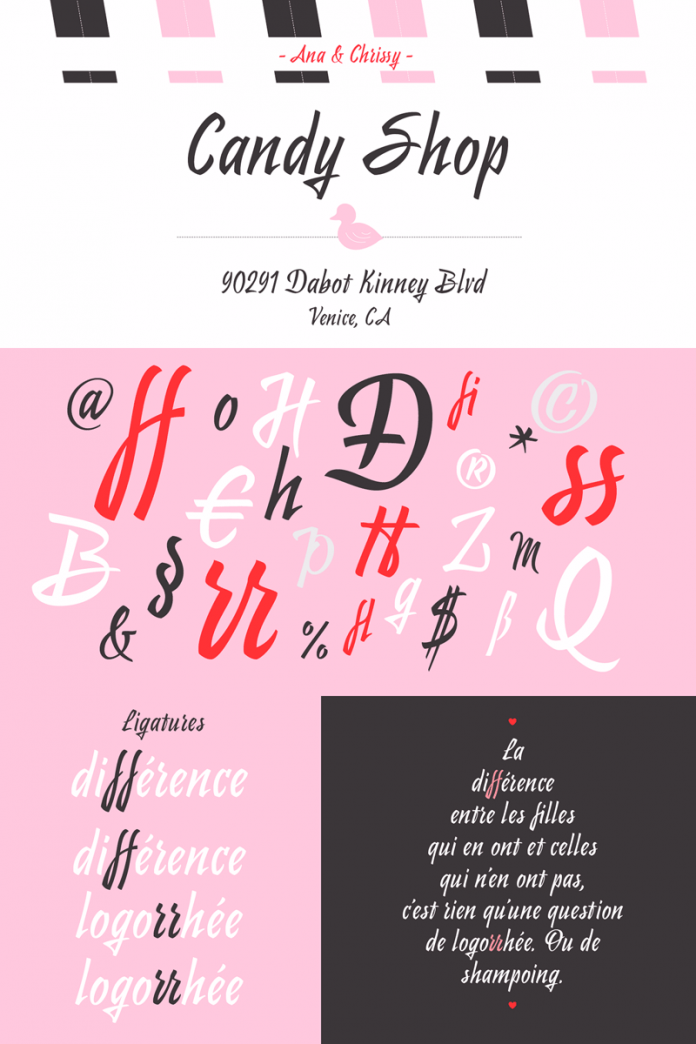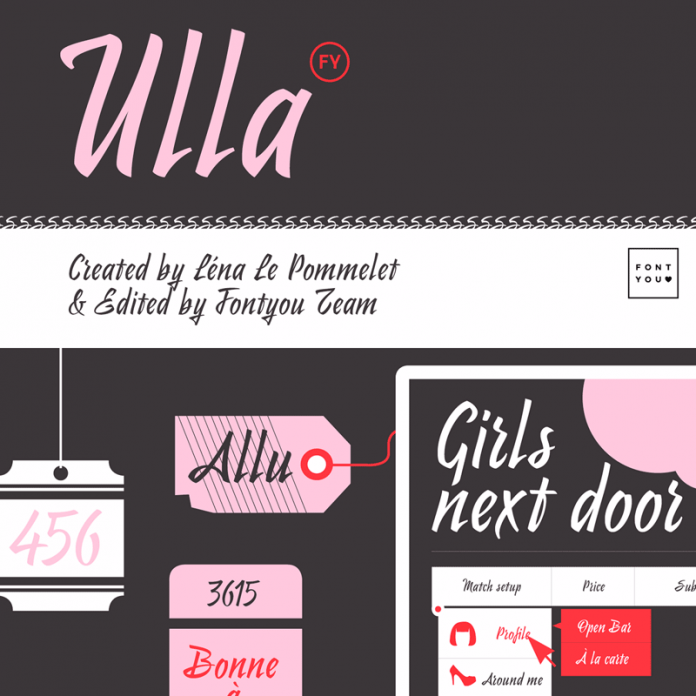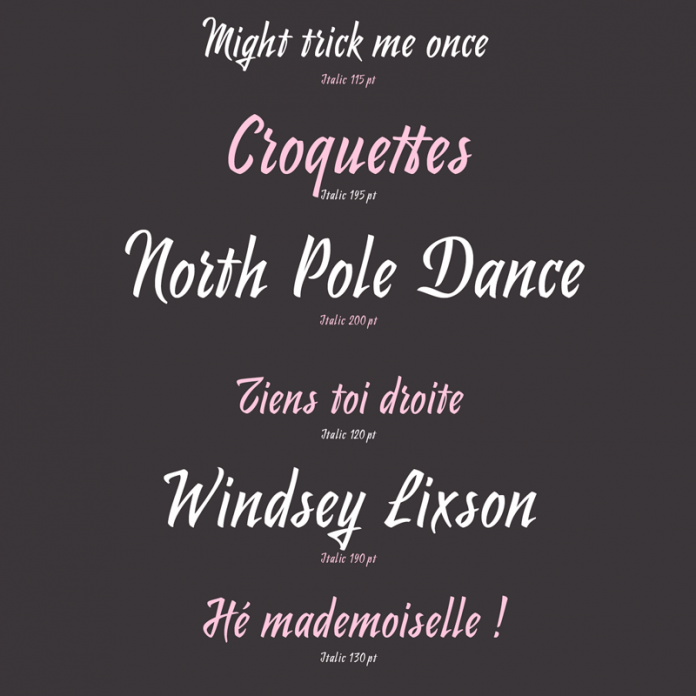
The Ulla FY vintage brush script typeface.
Lèna Le Pommelet has designed the Ulla FY font with a brush in 2014. This vintage script font draws inspiration by good old hand-drawn storefront sign paintings. Some of the typographic charasteristics such as generous calligraphic uppercase loops and spiky strokes at the lowercases give this typeface a dynamic and unique look. The font is equipped with different ligatures (ss, tt, ff, rr) to add some variations to your lettering. Ulla FY is well suited for the use in headlines, packaging, posters, signage, and festive invitations. You can get it as both desktop font as well as webfont.